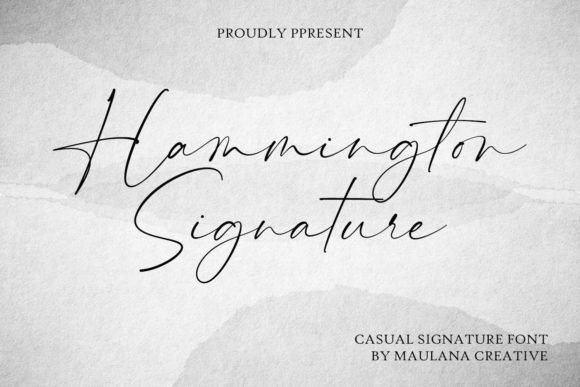
The Perfect Touch: Unlocking the Charm of the Hammington Signature Font
Have you ever found yourself scribbling down ideas in a notebook, and suddenly, a beautiful handwritten font appears on the page? That’s exactly what happened to me when I first laid eyes on the Hammington Signature Font. Its delicate, smooth, and thin lettered style is a breath of fresh air in the world of typography.
This versatile font is perfect for a wide range of applications, from elegant wedding invitations to trendy t-shirts. Its understated charm makes it an ideal choice for designers looking to add a touch of sophistication to their projects. Whether you’re a seasoned pro or just starting out, the Hammington Signature Font is a valuable addition to your design toolkit.
Hammington Signature Font Key Features
- Unique Characteristics: Hand-drawn, cursive, and script font with elegant flair, perfect for signatures, logos, and titles
- Font Style: Regular and Bold, with varying letter spacing and swashes for a more personal touch
Hammington Signature Font Review
I’ve had the chance to work with the Hammington Signature Font, and I must say it’s a unique and stylish choice. Here are my thoughts on what works well and what doesn’t.
- The font’s signature flair, which adds a touch of elegance to any design project.
- The wide range of weights and styles available, making it versatile for various design needs.
- The font’s modern and sophisticated feel, which makes it perfect for luxury brands and high-end designs.
- The font may not be suitable for designs that require a more traditional or classic look.
- The font’s unique flair may not be for everyone, and some designers may find it too ornate or overwhelming.
- The font’s legibility may be affected at smaller font sizes, making it less ideal for body text.
Overall, I think the Hammington Signature Font is a great choice for designers who want to add a touch of luxury and sophistication to their projects. However, it may not be the best fit for every design need, and designers should be aware of its limitations.
The Hammington Signature Font is perfect for:
- Creativity and inspiration projects
- Personal branding and signature design
Remember to experiment with different font sizes, colors, and styles to get the most out of the Hammington Signature Font.
Alternatives to Hammington Signature Font
Playfair Display is an elegant, high-end serif font ideal for luxury branding, high-end fashion, and fine dining. It’s perfect for creating a sophisticated and refined atmosphere.
Compared to Hammington Signature Font, Playfair Display is more formal and traditional. While Hammington has a more modern feel, Playfair Display exudes classic sophistication.
Lato is a modern sans-serif font suitable for a wide range of applications, from corporate branding to digital products. It’s clean, minimalist, and highly legible.
Compared to Hammington Signature Font, Lato is more versatile and neutral. While Hammington has a distinctive, hand-drawn feel, Lato is more straightforward and adaptable.
Great Vibes is a stylish, modern script font perfect for creative projects, such as weddings, invitations, and advertising. It’s playful, elegant, and highly expressive.
Compared to Hammington Signature Font, Great Vibes is more dynamic and expressive. While Hammington has a more subtle, refined feel, Great Vibes is more attention-grabbing and emotive.
For optimal readability, we recommend using the Hammington Signature Font at a minimum font size of 12 points and a line height of 1.5 times the font size. This will ensure that the text is clear and easy to read, even at smaller font sizes.